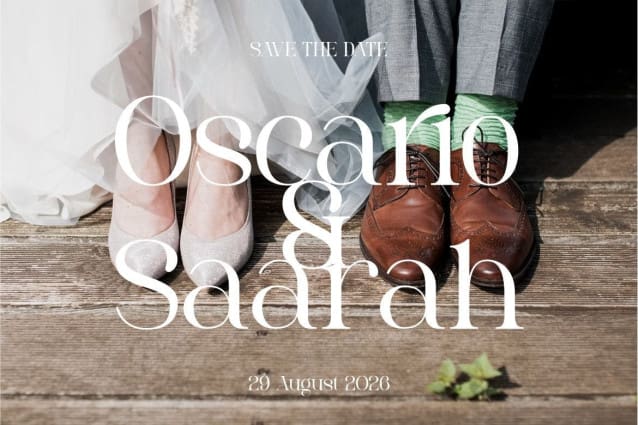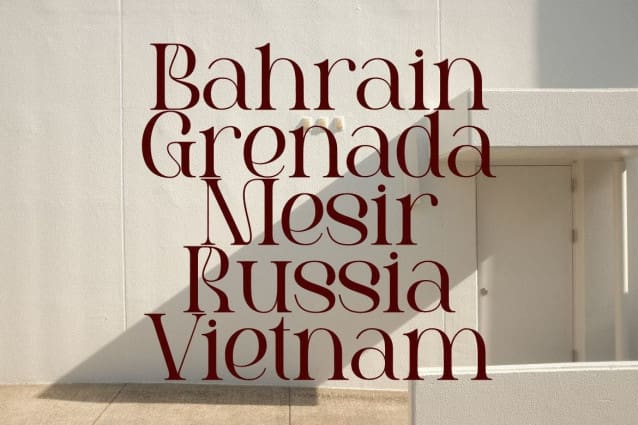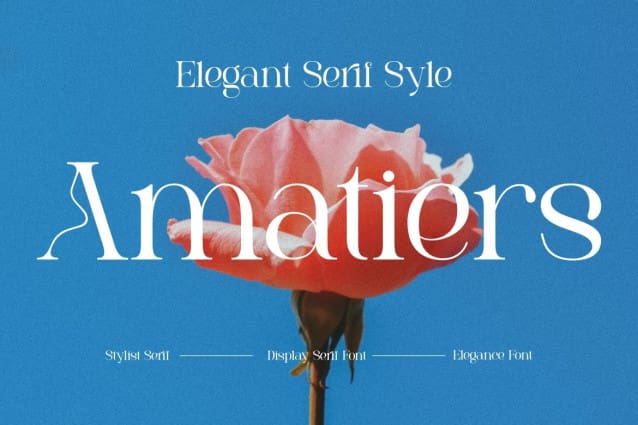
Amatiers Font
Amatiers Font, this collection of sSerif is perfect for personal branding. It was made with the intention to be used for your personal branding. But, this works well for many applications. Everything from personal branding, logos, name tag, handwritten quotes, product packaging, merchandise, social media & greeting cards. photography signature, advertising could benefit from this collection of these bold signature fonts.